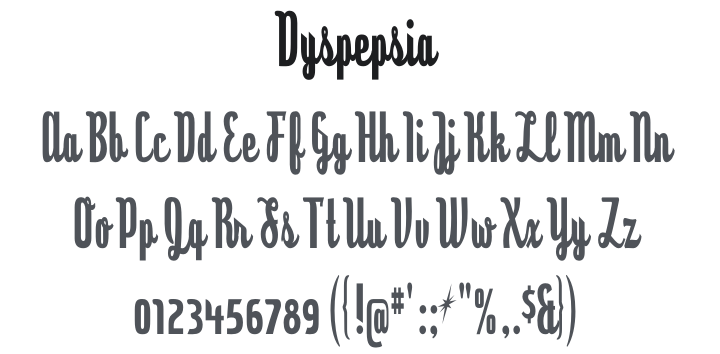
Dyspepsia Font
About Dyspepsia
Dyspepsia is a vertical, constructed, semi-joined script typeface — upright rather than slanted, with bold letterforms that feel deliberately hand-built rather than naturally flowing. Its confident, slightly formal construction gives it the look of classic early-20th-century signage or logotype lettering. Great for logos, vintage-style posters, t-shirt graphics, bottle labels, and any design needing a sturdy, characterful script presence.